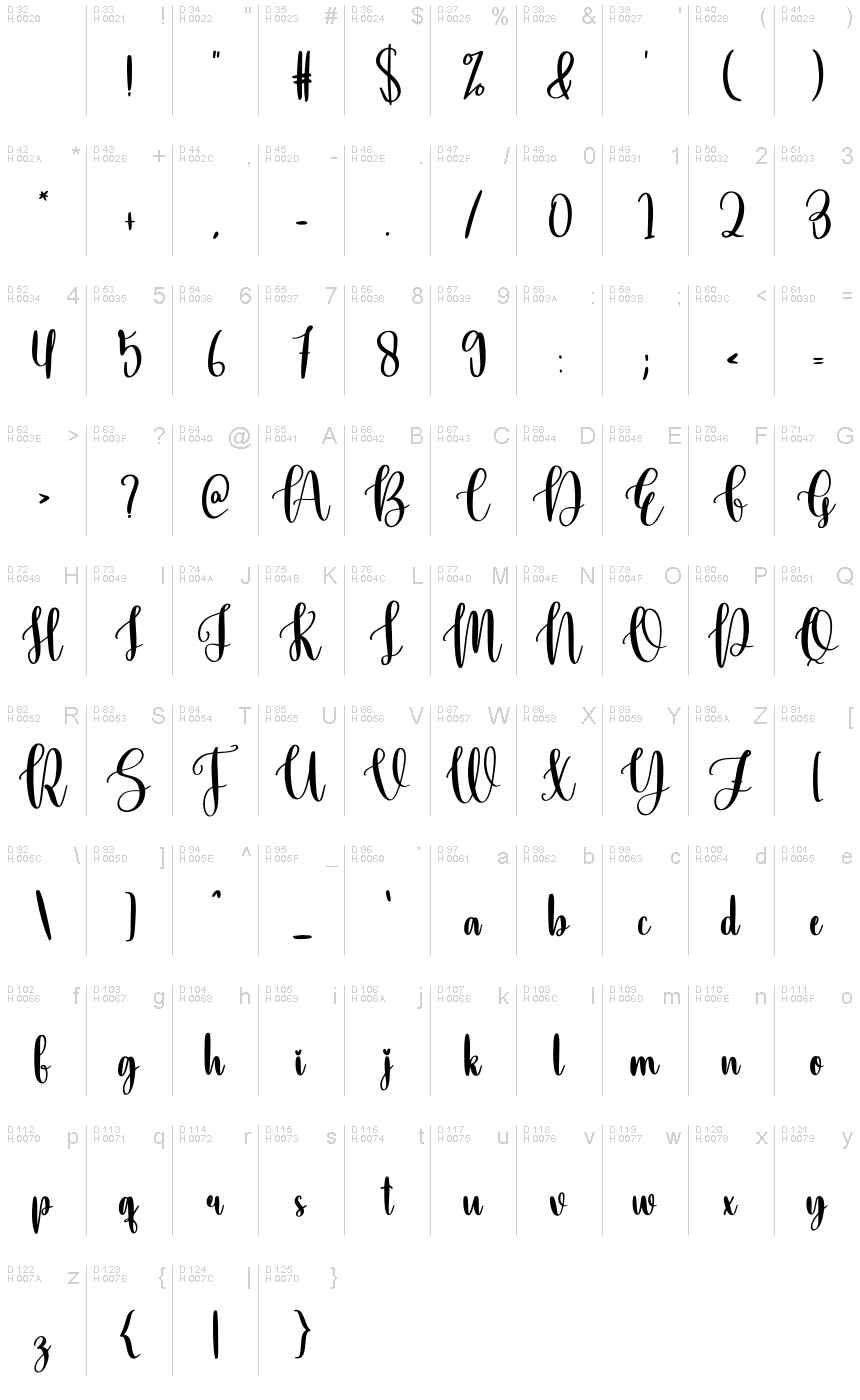
Anfant
Anfant by Scratchones is a captivating calligraphic font that exudes a warm, organic charm. Its flowing, expressive strokes and elegant curves create a sense of graceful movement, evoking the timeless beauty of handwritten script. The font's distinctive character lends itself well to projects that require a touch of refined sophistication, from branding and editorial design to wedding invitations and event materials.
This versatile font can elevate a wide range of design endeavors, its versatility shining through in applications such as logo design, packaging, and social media content. Anfant's ability to convey a sense of artisanal craftsmanship makes it an ideal choice for brands seeking to cultivate a premium, handcrafted aesthetic. Its fluid, expressive nature also lends itself well to creative writing, poetry, and personal correspondence, where the font's emotive qualities can truly shine.